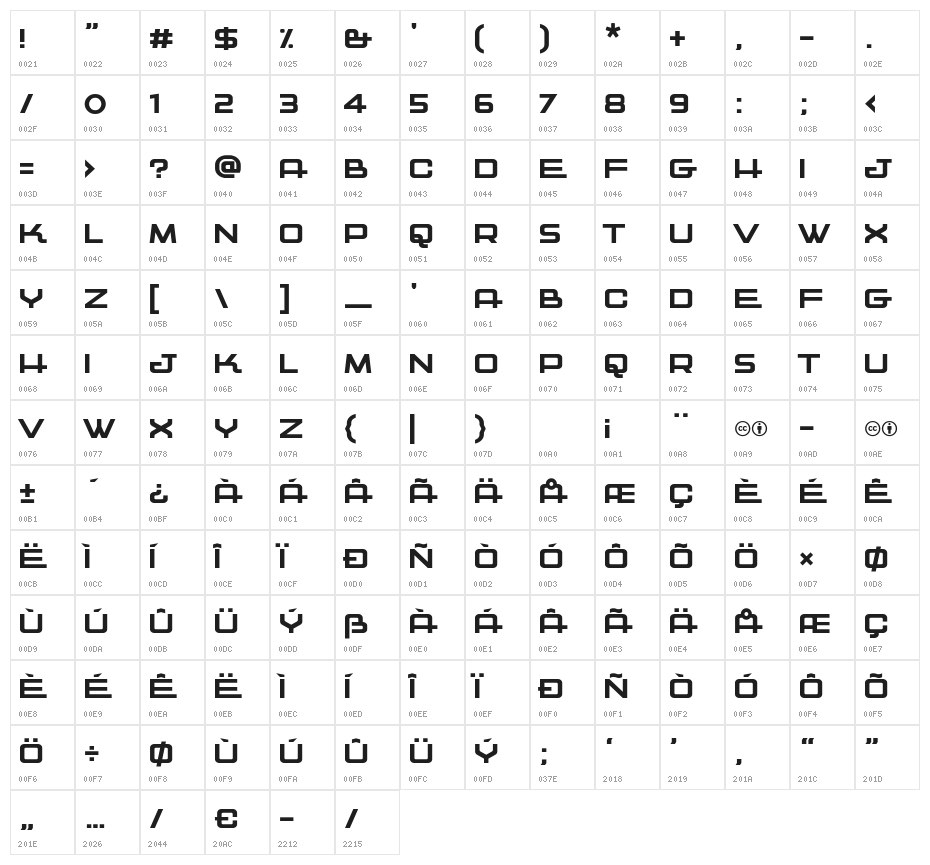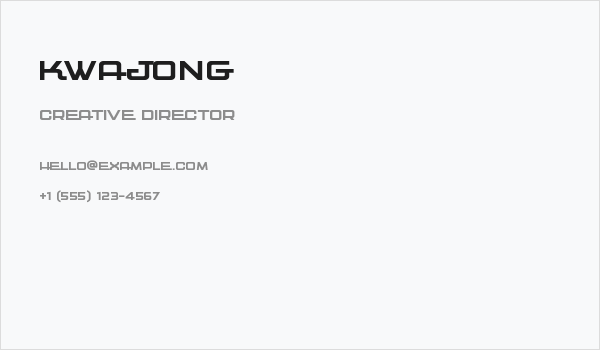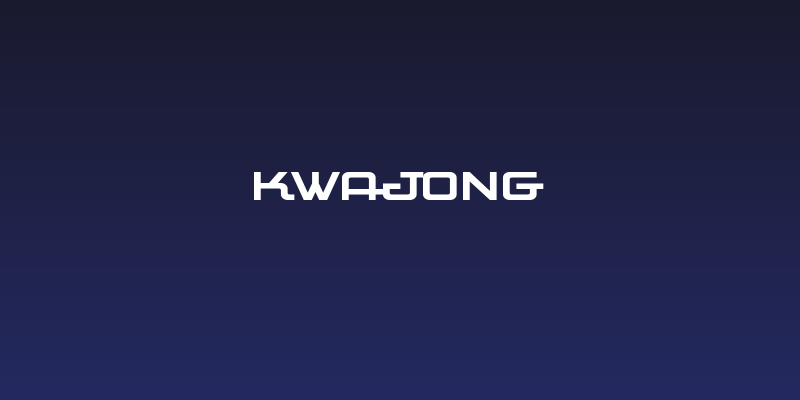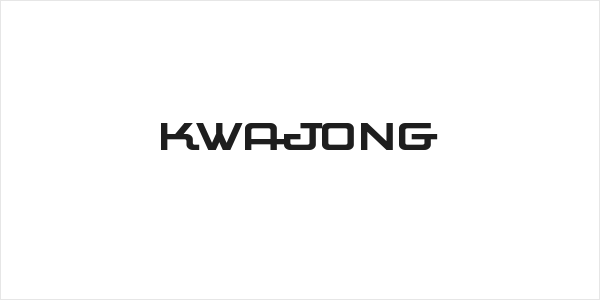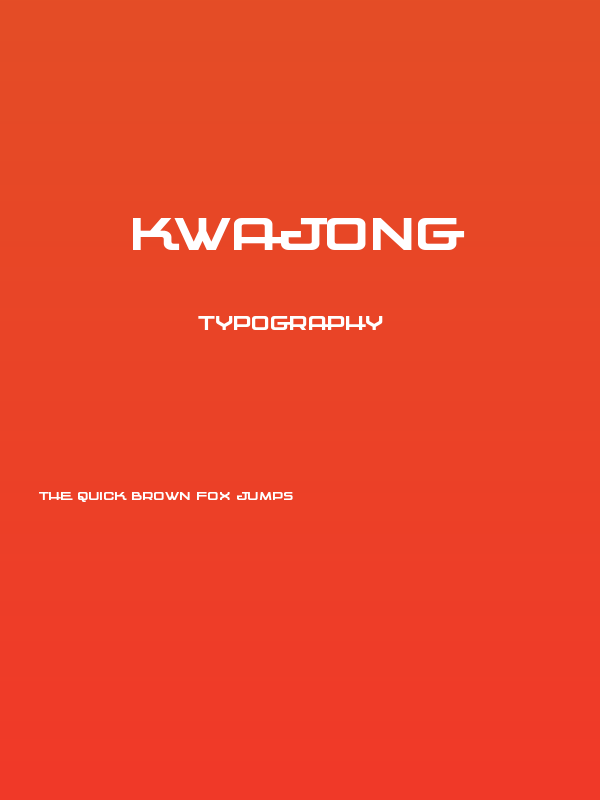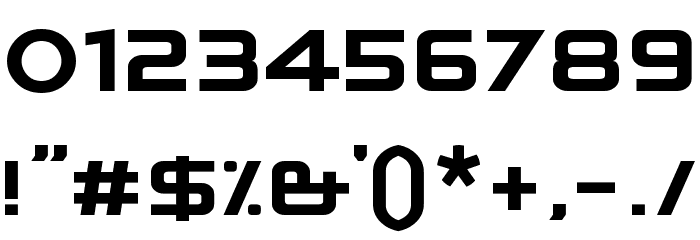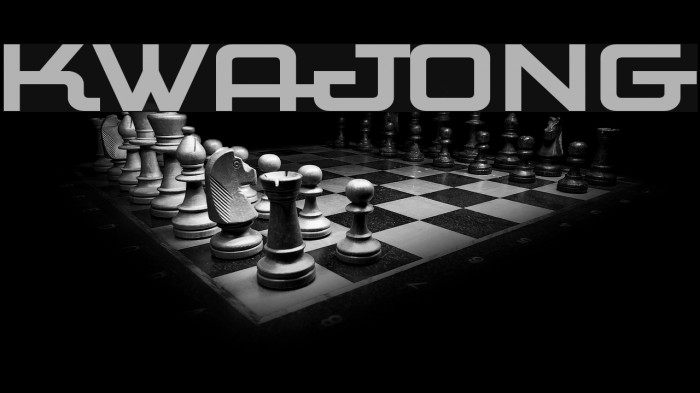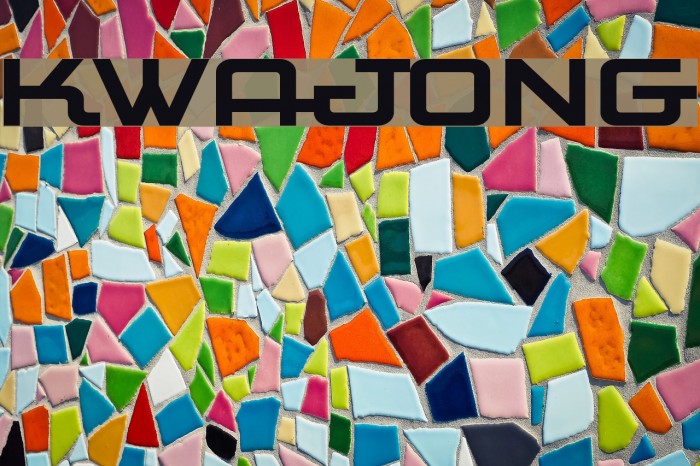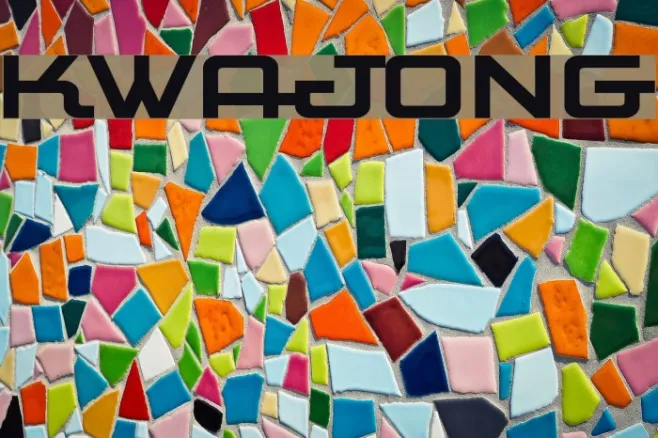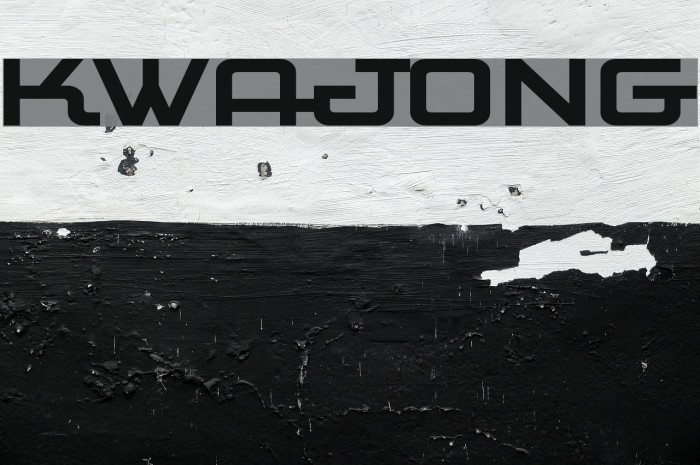
Kwajong Font
Kwajong Description
This font features a bold, geometric design with a futuristic and tech-inspired aesthetic. The characters are constructed with a consistent stroke width, giving them a uniform appearance. The uppercase letters have a strong presence with angular and squared-off edges, while the lowercase letters maintain the same geometric style. The numbers are equally bold and fit seamlessly with the overall design. Special characters are designed to match the boldness and geometric nature of the font, making it suitable for digital and modern applications.
| Proposed Projects | Ideal for technology branding, digital interfaces, video game design, and modern advertising. |